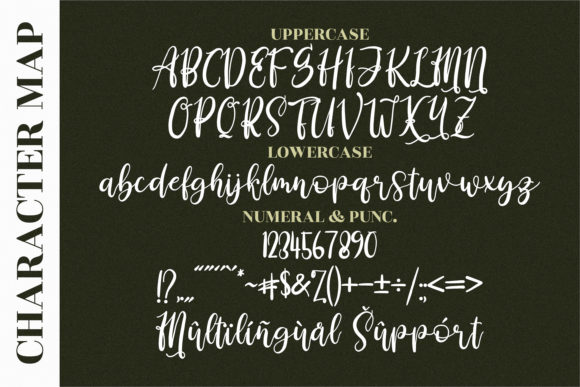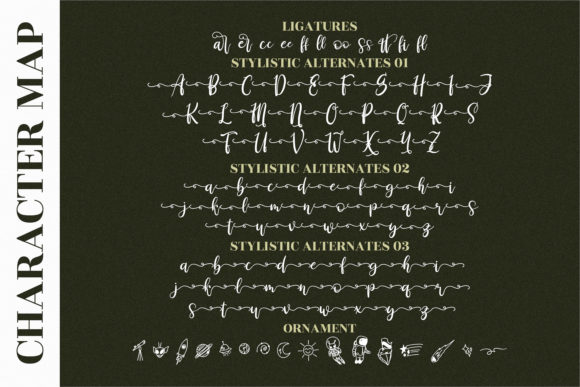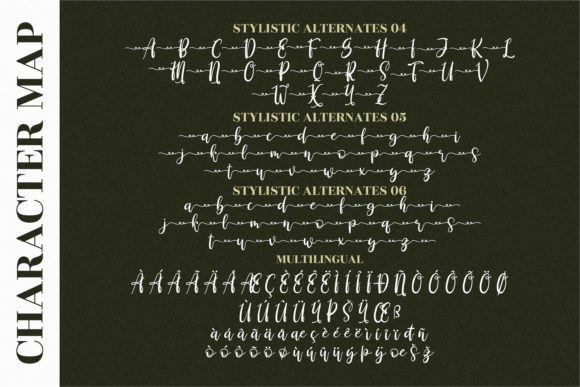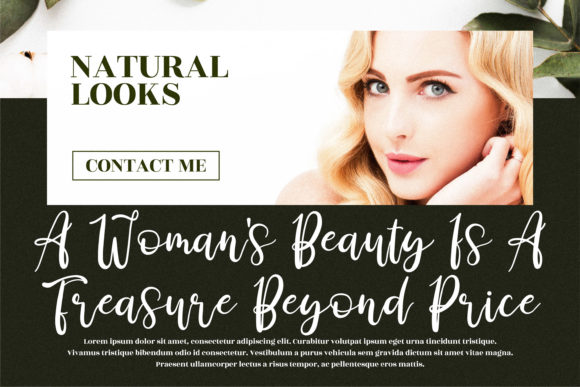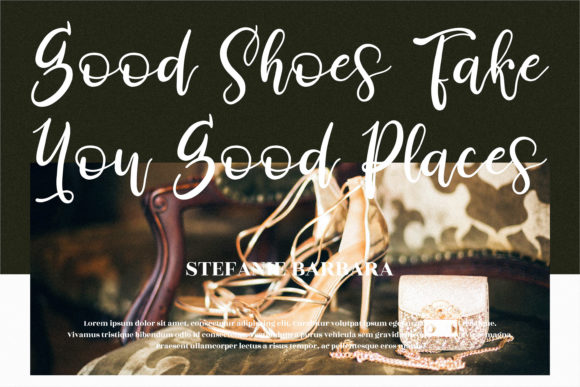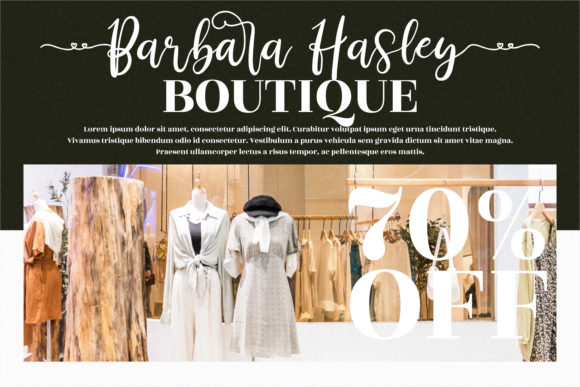
Discover the Elegance of Derlinata Space Font: Elevate Your Designs with Precision and Style
In the realm of typography, a font can make or break the aesthetic appeal of a design. For crafters, designers, and creative enthusiasts, finding the perfect font that combines elegance, readability, and versatility is a constant quest. This is where Derlinata Space Font comes into play, an outstanding script font that is meticulously crafted to enhance any creation with its high level of detail and precision.
What Makes Derlinata Space Font Stand Out?
Derlinata Space Font is not just another addition to your font library; it’s a game-changer. Its neat and highly detailed design ensures that it can be applied to a wide range of topics and projects, from fashion and beauty to technology and education. The font’s versatility is one of its most compelling features, making it an indispensable asset for designers who work on diverse projects.
The Advantages of Using Derlinata Space Font
- PUA Encoding for Easy Access: One of the significant advantages of Derlinata Space Font is that it is PUA (Private Use Area) encoded. This means that accessing all the glyphs and swashes is straightforward, allowing designers to explore a wide range of creative possibilities without any hassle.
- Elegant and Readable: The font’s script style is both elegant and highly readable, making it perfect for use in various design projects, including branding, advertising, and digital content creation.
- Highly Versatile: Whether you’re working on a luxury brand’s logo, a fashion blog, or an educational website, Derlinata Space Font can adapt to any design requirement with ease.
- Detailed Craftsmanship: The attention to detail in Derlinata Space Font is evident in its clean lines, perfect curves, and the seamless flow of its script. This level of craftsmanship ensures that your designs stand out with a professional and polished look.
Tips for Maximizing the Potential of Derlinata Space Font:
- Experiment with Sizes and Colors: Play around with different sizes and colors to see how Derlinata Space Font can be adapted to fit your brand’s aesthetic or project theme.
- Pair it with Complementary Fonts: For projects that require more than one font, experiment with pairing Derlinata Space Font with complementary fonts to create visual interest and hierarchy.
- Utilize Glyphs and Swashes: Take full advantage of the PUA encoding by incorporating glyphs and swashes into your design. These elements can add a unique flair to your text and make it stand out.
Derlinata Space Font is more than just a script font; it’s a tool that can elevate your designs to new heights. Its combination of elegance, readability, and versatility makes it an excellent choice for designers and crafters looking to add a professional touch to their work. With its PUA encoding, detailed craftsmanship, and adaptability, Derlinata Space Font is poised to become a favorite in your font library. Whether you’re working on a personal project or a client’s, this font is sure to enhance your creations and leave a lasting impression.